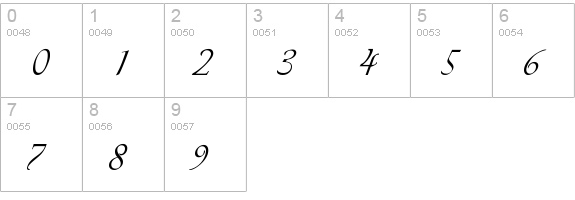
Vivaldi font is a stunning typeface that exudes elegance and sophistication. With its graceful curves and delicate details, it brings a touch of class to any design project. Whether used for invitations, branding, or editorial layouts, Vivaldi font adds a timeless beauty that captivates the eye. This exquisite font is freely available to download at FontsMarket.com. As a free font, it offers endless possibilities for designers and creatives looking to elevate their work without breaking the bank. Its availability allows for seamless integration into various projects, ensuring that everyone can enjoy its refined charm. Vivaldi font's versatility extends beyond its visual appeal. Its carefully crafted letterforms and balanced proportions make it highly readable, making it suitable for both large headlines and small body text. It possesses a certain air of sophistication that effortlessly adds a touch of refinement to any design. Whether you're designing for a wedding invitation, a high-end fashion brand, or a luxury magazine, Vivaldi font is the perfect choice to convey a sense of elegance and sophistication. Its timeless beauty ensures that your designs will never go out of style. Download Vivaldi font for free at FontsMarket.com and unlock the potential of this exquisite typeface. With its graceful curves, refined details, and versatile nature, Vivaldi font is sure to elevate your designs to new heights. Don't miss out on the opportunity to add a touch of class to your projects with this freely available font.